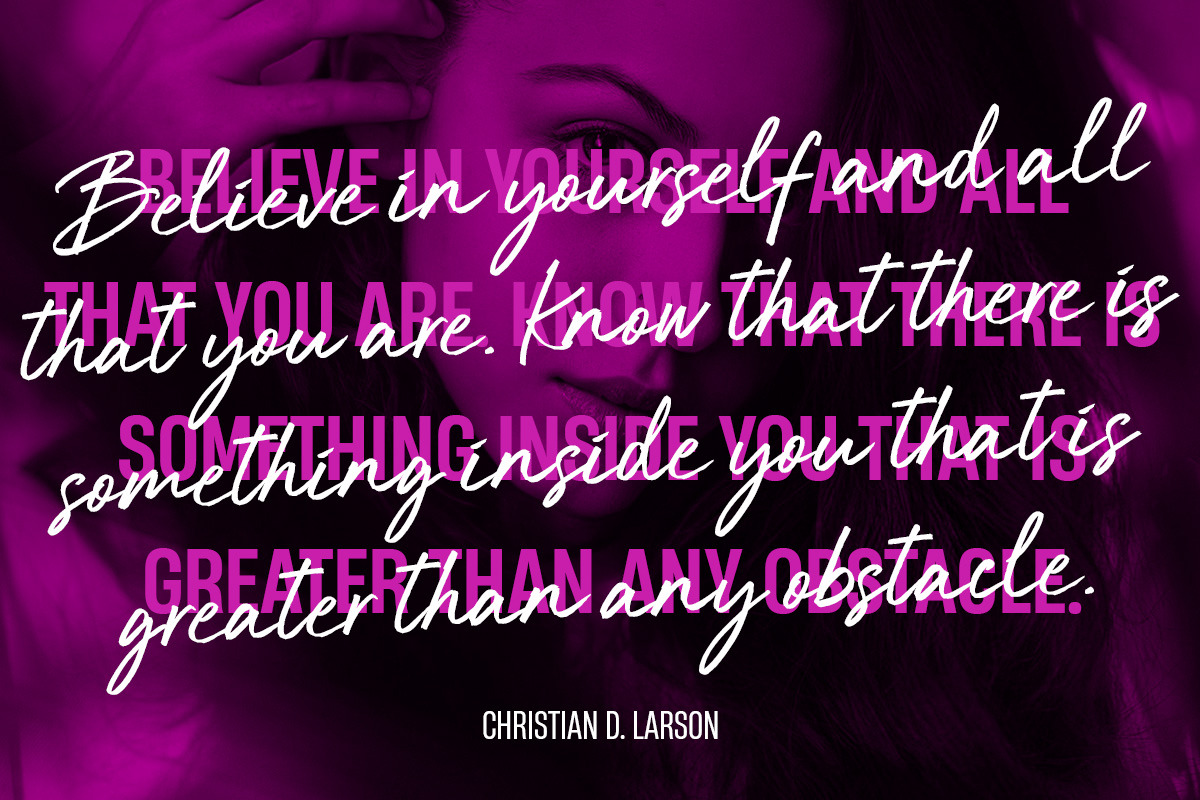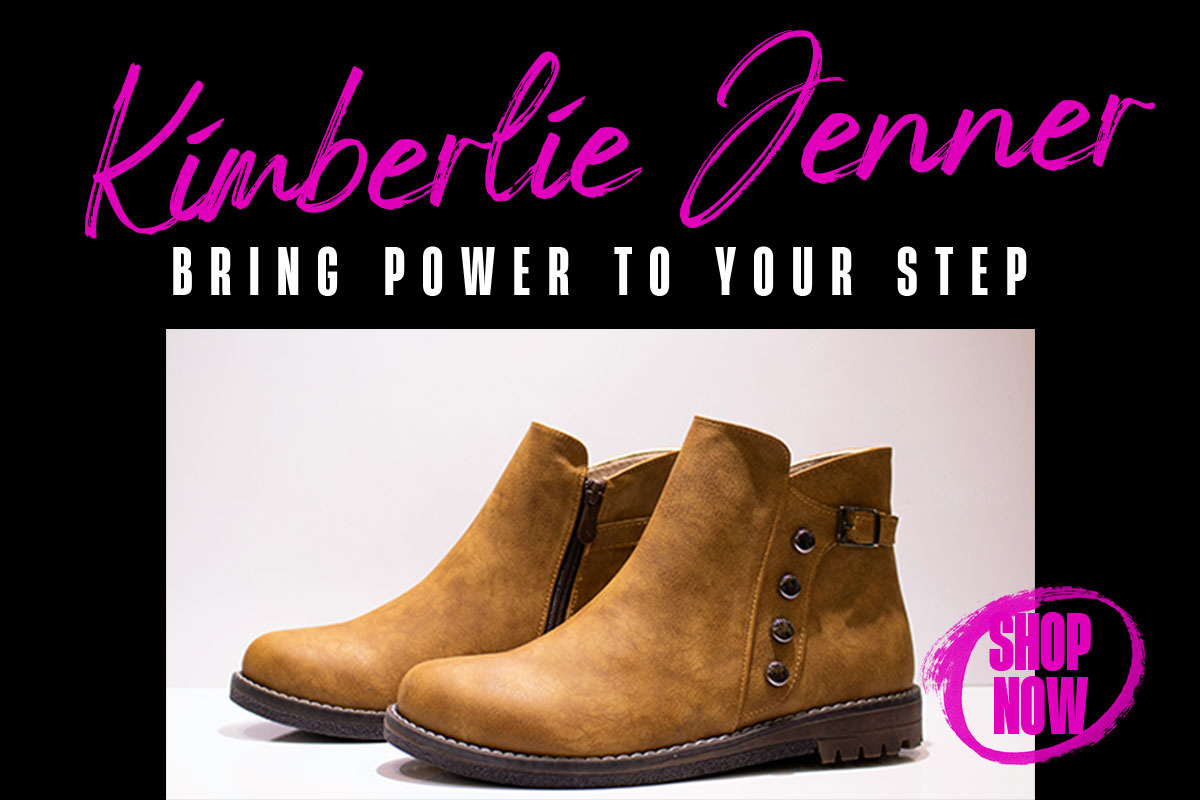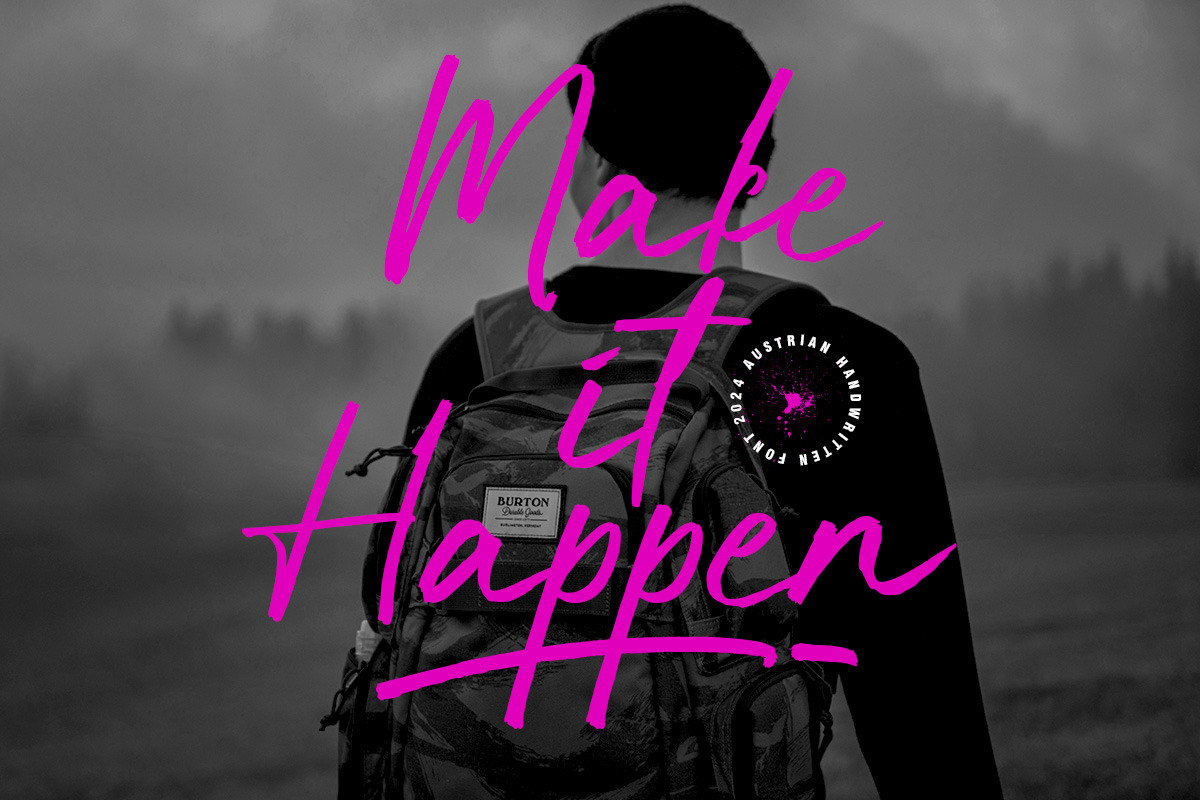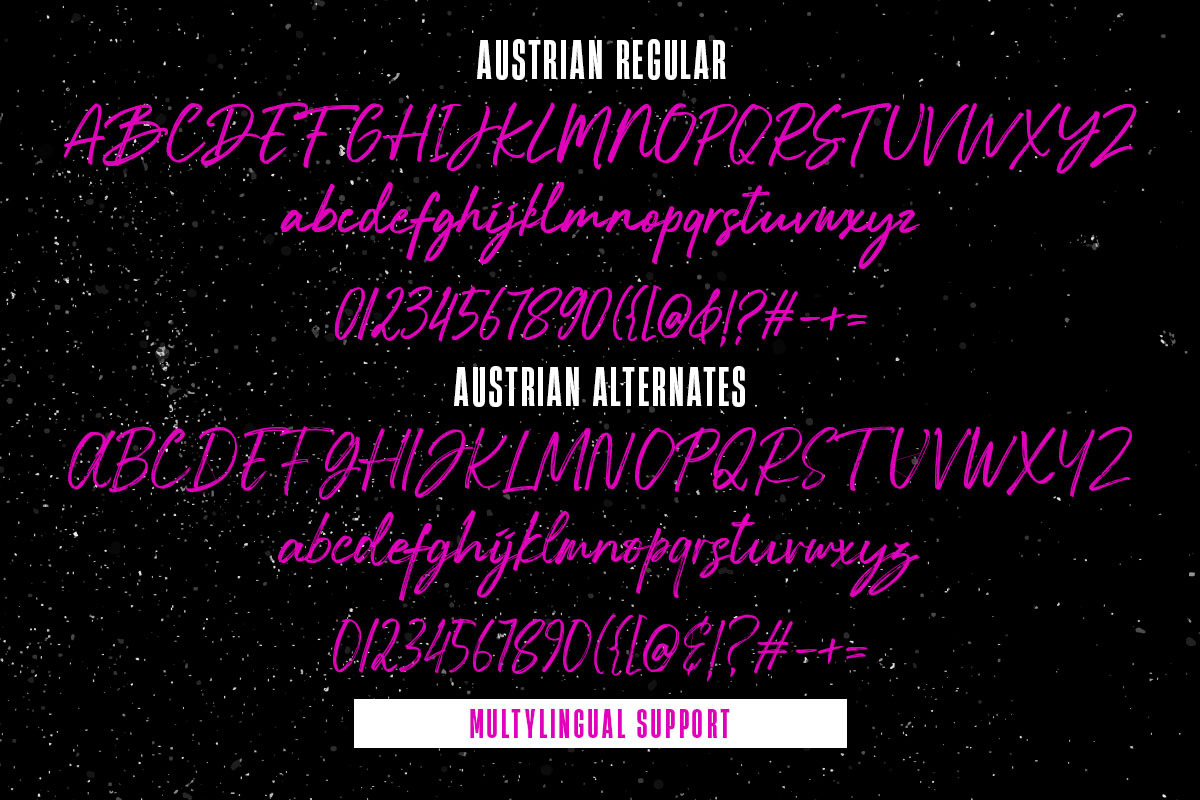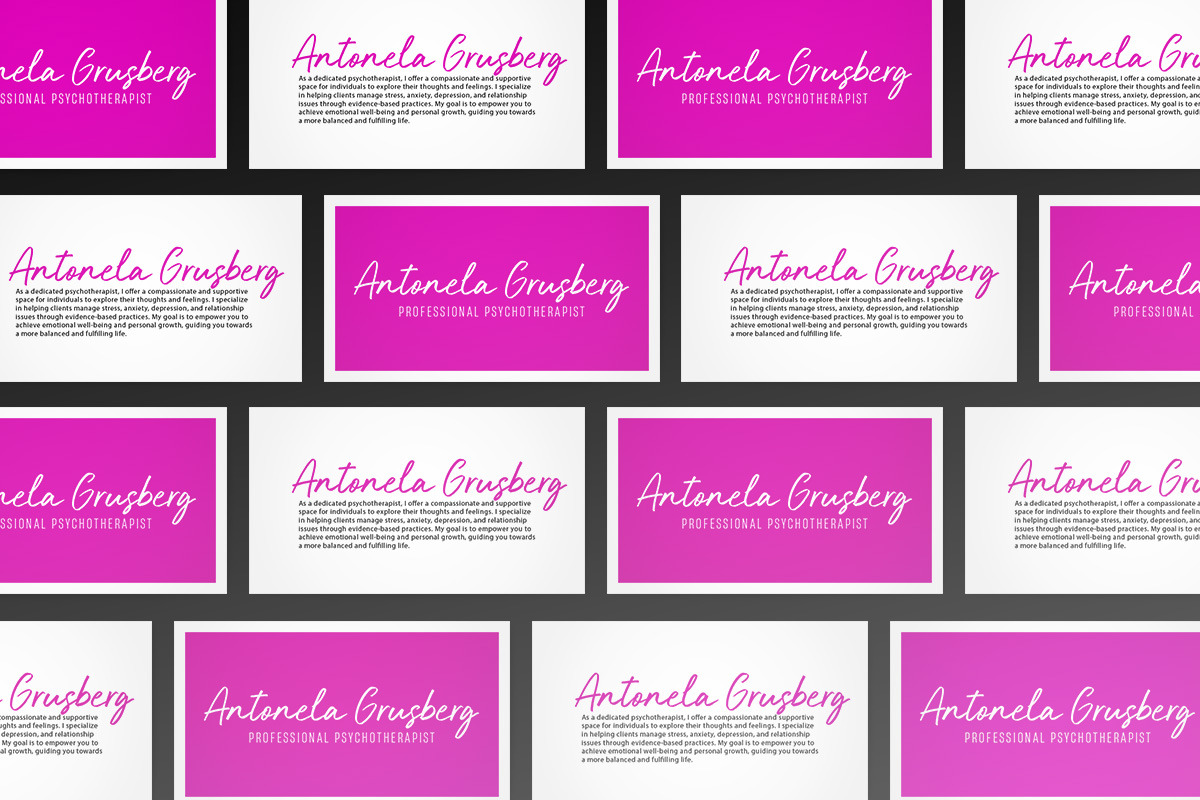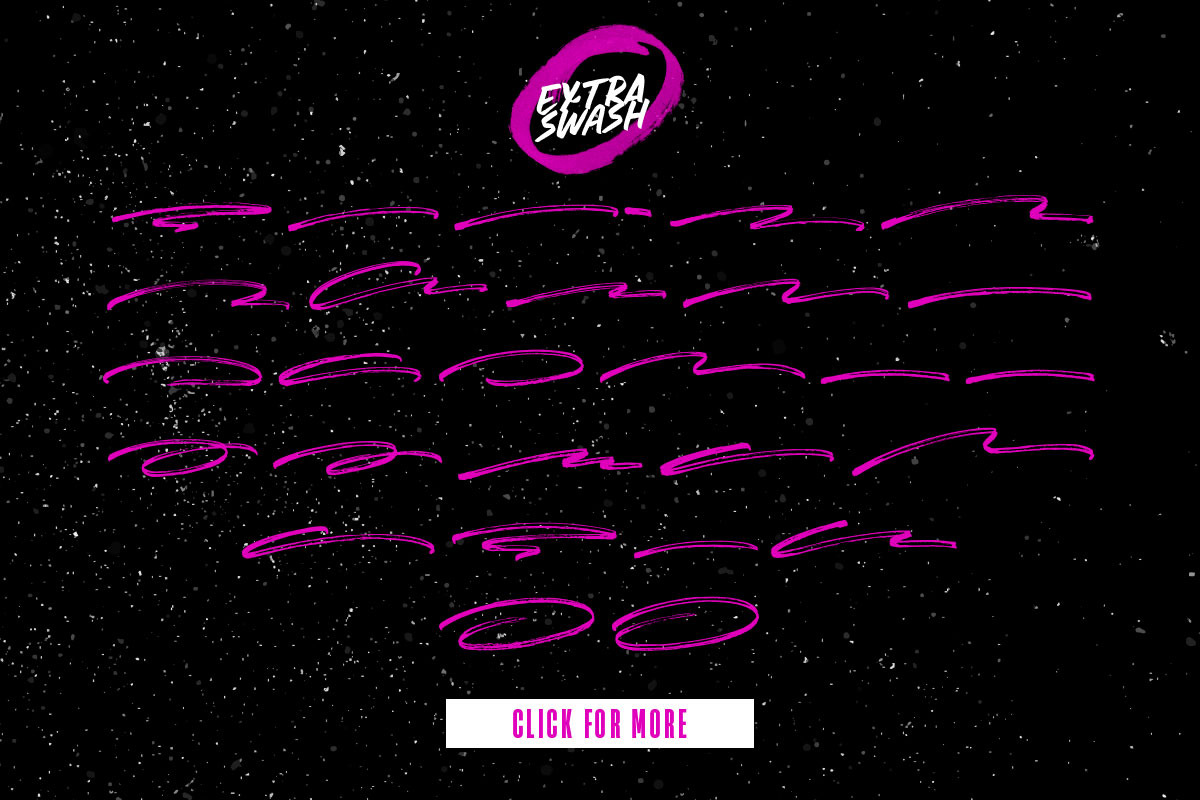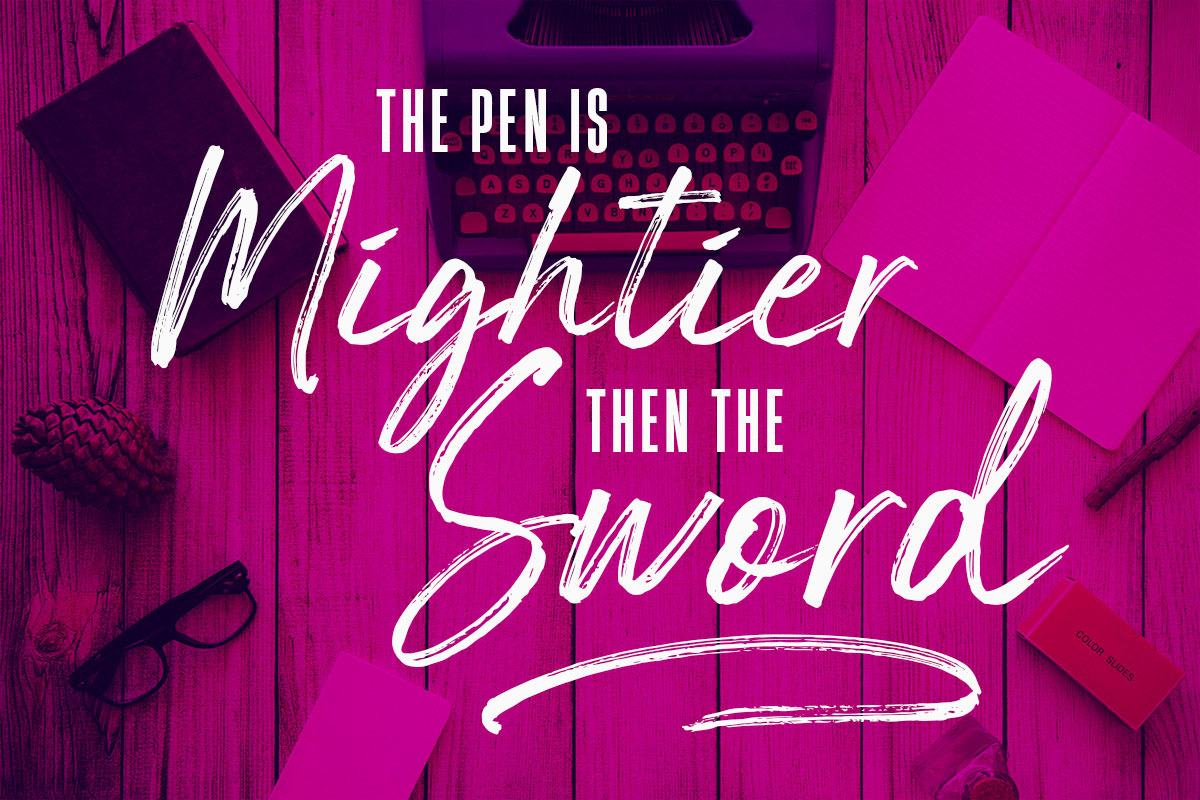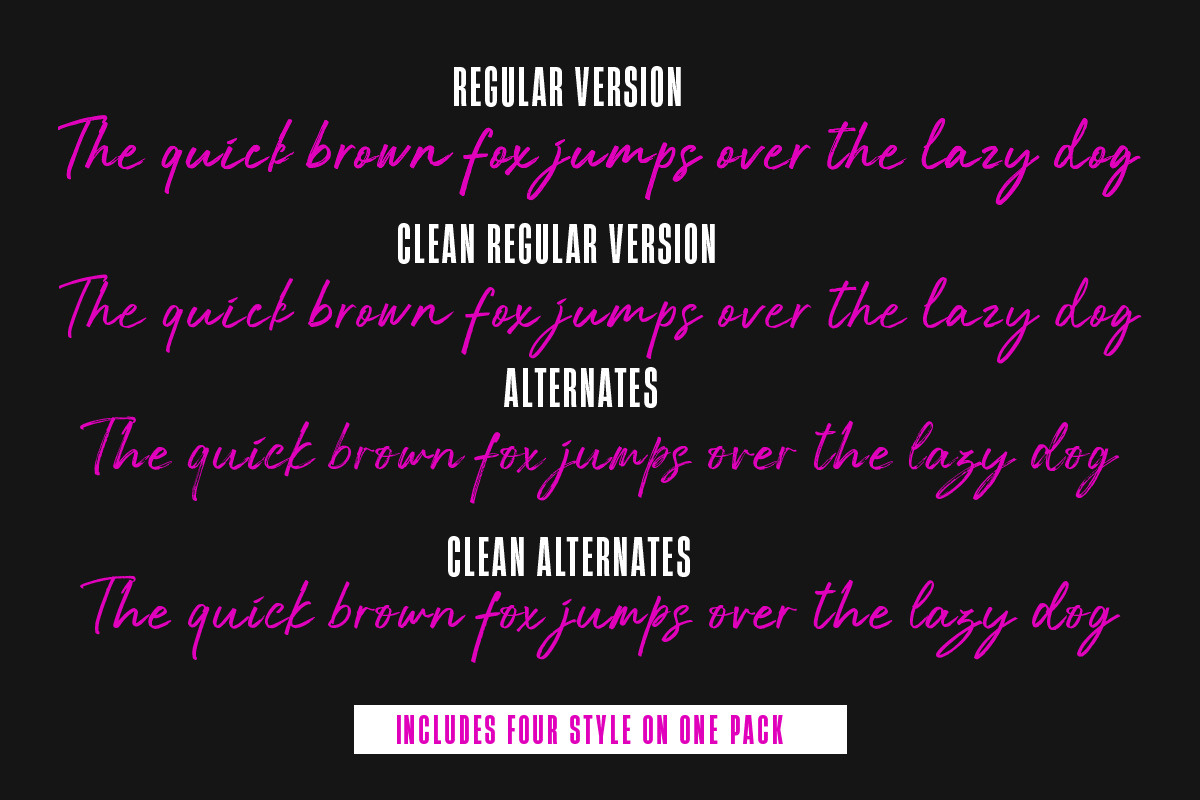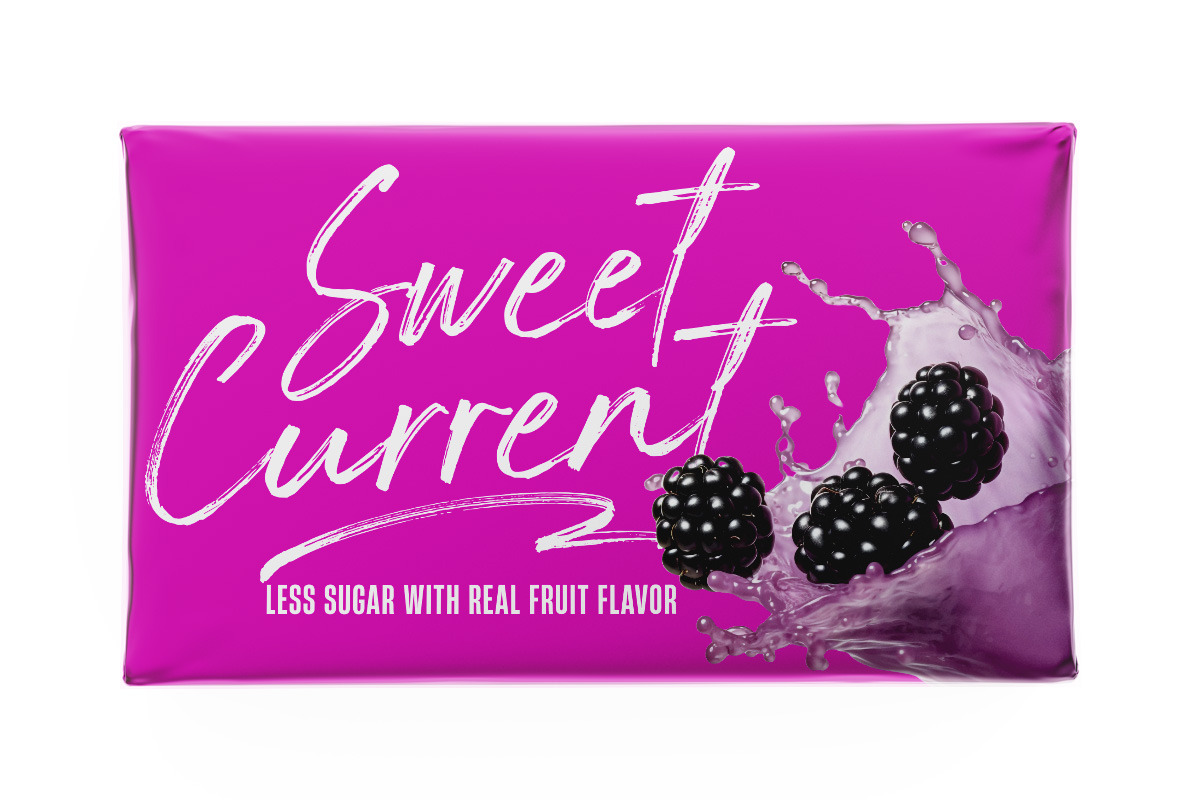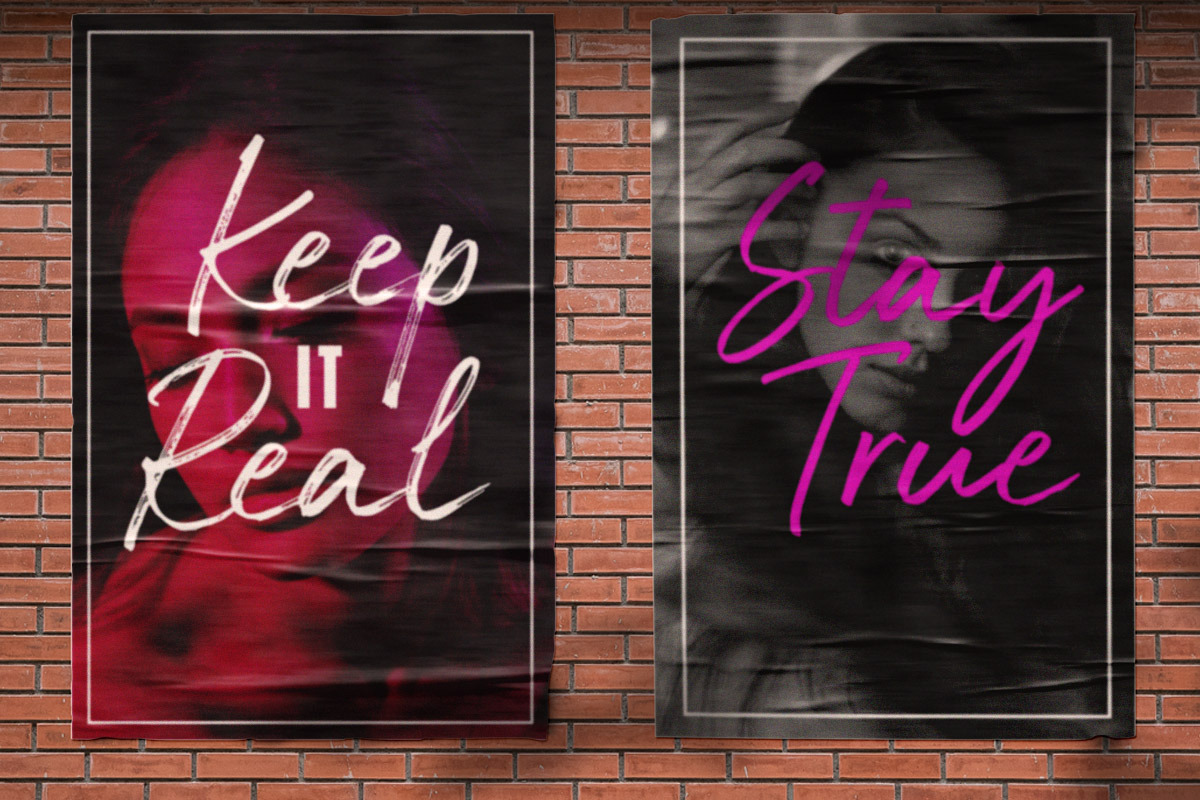
Austrian
Austrian is a new handwritten font whose every stroke is carefully crafted to maintain consistency while showcasing the unique characteristics of stunning hand-drawn art. This typeface is ideal for branding, social media, invitations, and any design project that wants a personal, crafted feel. The natural advantage of Austrian is that it has two different typefaces, namely Austrian Regular and Austrian Alternative, with each having a clean version to ensure that the Austrian font stands out in both digital and print formats. Austria also has several strokes that will enhance your design.